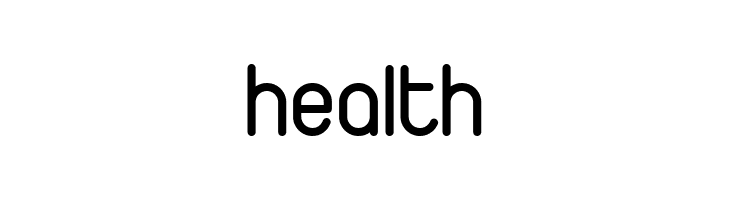
A modern, rounded sans-serif font with uniform width and smooth lines.
A modern sans-serif font with geometric shapes and uniform strokes.
A modern, geometric sans-serif font with clean lines and uniform thickness.
A bold, clean font with strong lines and uniform strokes.
A bold, strong font with uniform thickness and a robust appearance.
A modern, geometric sans-serif typeface with uniform stroke widths.
A modern, geometric sans-serif typeface with uniform strokes and balanced proportions.